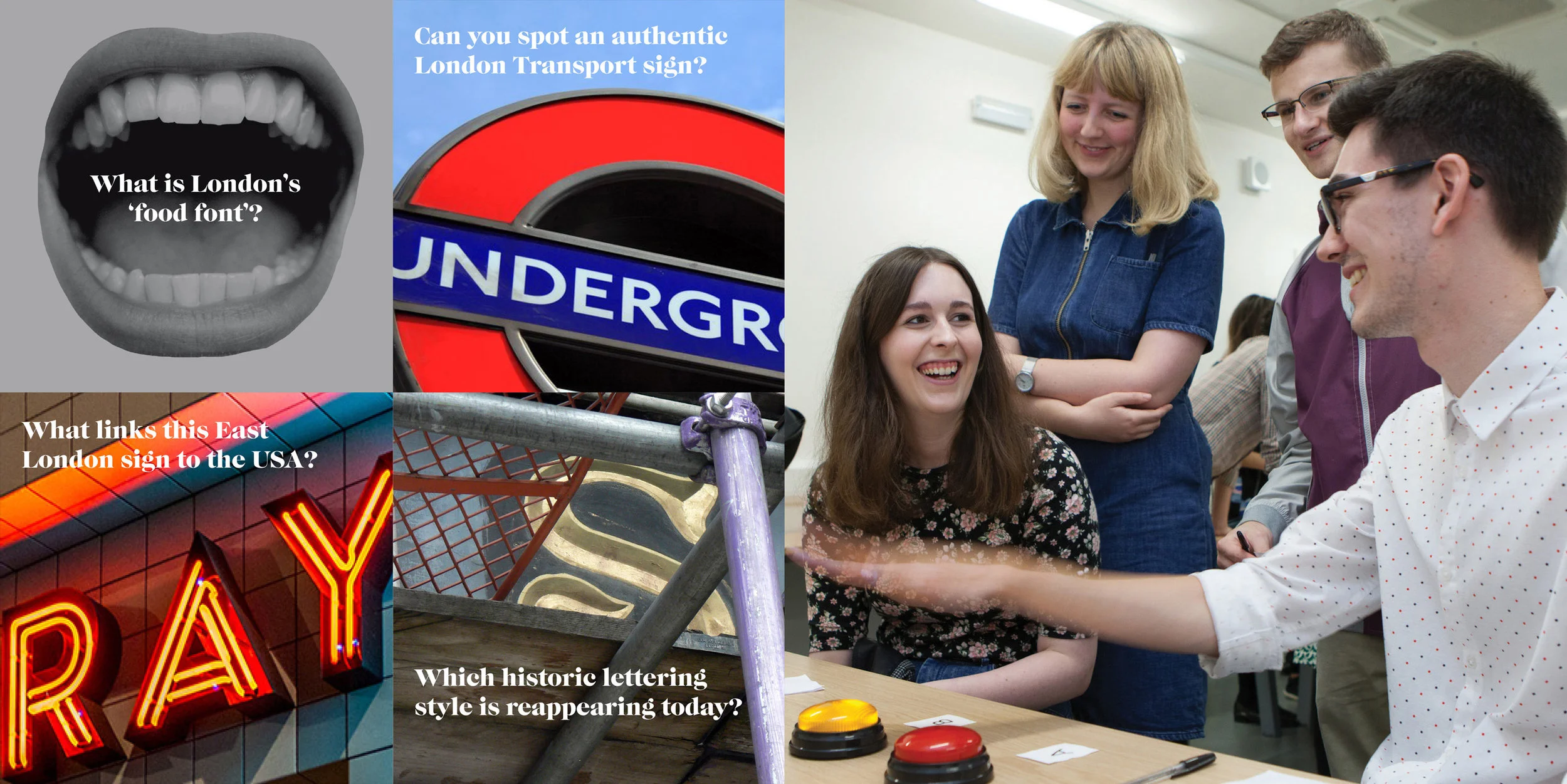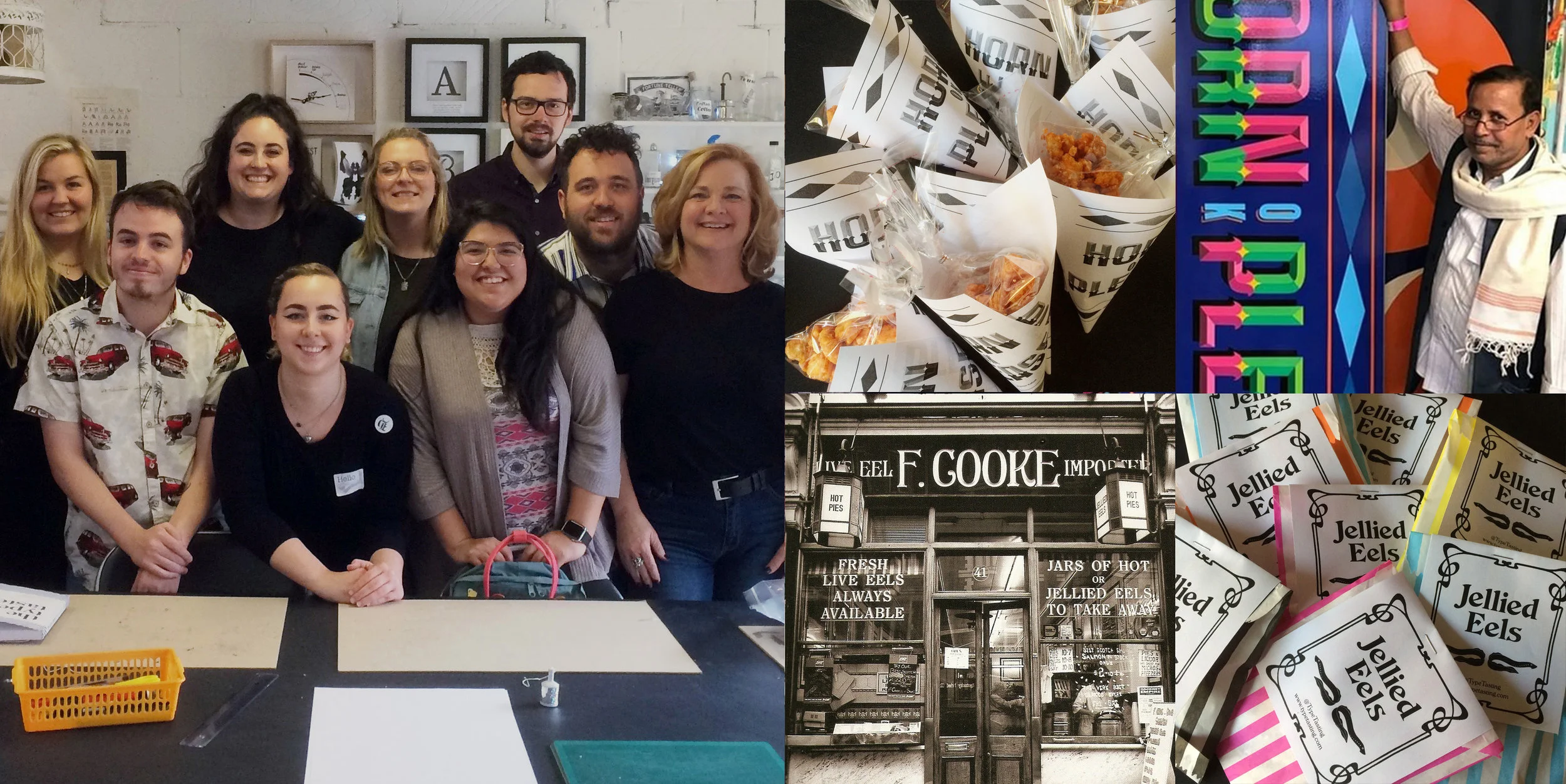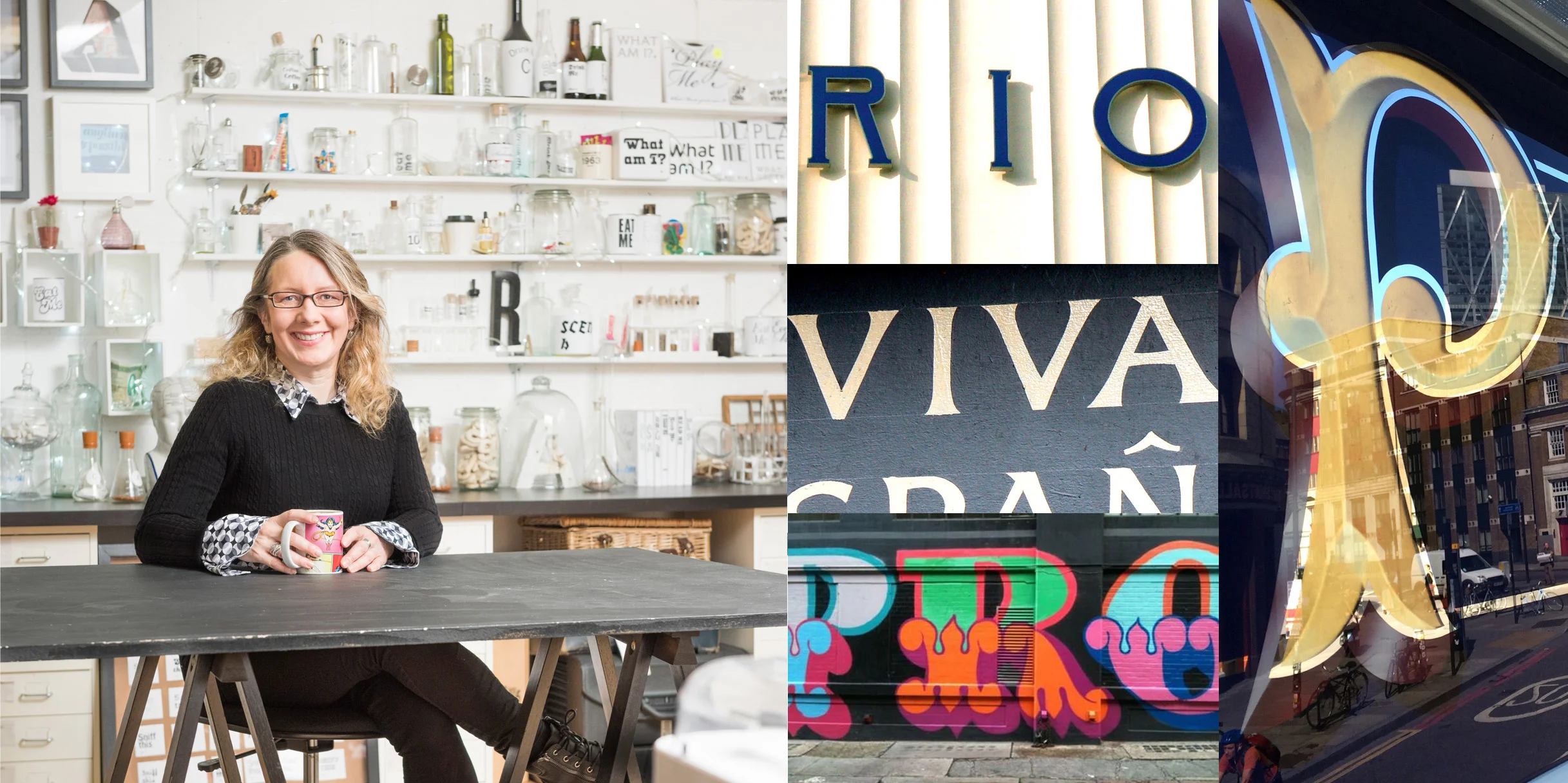
Hidden messages in London’s typography, studio session
This is the evocative story of London street signs and what they communicate to you, often on a subconscious level.
Hello I'm Sarah, I'm an author and founder of Type Tasting. Join me for an activity-filled session in my ephemera-filled studio discovering what street signs are communicating to you, how you recognise these messages automatically and where this information comes from. This engaging session will open your eyes to what’s around you every day, and shed light on some of the instinctive choices you make.
The session is suitable for all, no prior experience of typography is needed. Whether you're a local or you're visiting London, this is an engaging way to gain insider knowledge of the city and to discover that you're already a typography expert (you just might not realise it).
This was a roaring success when it first launched at Soho House and, due to popular demand, it will now run on an occasional basis in my studio in an old Victorian chocolate factory overlooking a pretty cobbled courtyard, and nestled on the edge of Dalston in London.
Speaking at Design Thinkers Vancouver and chatting to Tim and Simon on Channel 4's Sunday Brunch.
Author Sarah Hyndman is your tour guide for this hands-on and interactive masterclass. She will show you how the street signs of London reveal amazing layers of history, and that inform your decision making — often on a subconscious level.
Sarah Hyndman is the author of ‘Why Fonts Matter’. She is a TEDx speaker, a regular on radio (BBC Radio 4’s Word of Mouth with Michael Rosen, Saturday Live, Today.) and TV (Sunday Brunch). Sarah is a multisensory typography expert and collaborates on studies with Professor Charles Spence of the University of Oxford.
This studio-based session is inspired by the Dalston Type Safaris that Sarah ran for five years. Read about them in the Londonist, and about her love of street signs in the Big Issue.
The Chocolate Factory’s pretty cobbled courtyard.
“A fascinating and eye-opening session. Sarah is hugely knowledgeable both on the history and the psychology of fonts, but wears her expertise lightly, presenting the subject in an accessible and entertaining way often with the help of amusing anecdotes, quizzes and games and with a great generosity of spirit, making everyone feel at ease about answering questions and asking their own. Her presentations are truly multisensory with the addition of imagery, sounds and frequent snacks! Sarah has great attention to detail—anything from attractive mugs for a variety of complimentary drinks, to nicely displayed nibbles, and wide range of drawing materials and notebooks. We all left feeling we have had an interesting and stimulating time and with our eyes opened to so much we took for granted or never really paid attention to in the streets of our neighbourhood. A unique, great value and highly recommended workshop.” Lydia Bauman, artist.